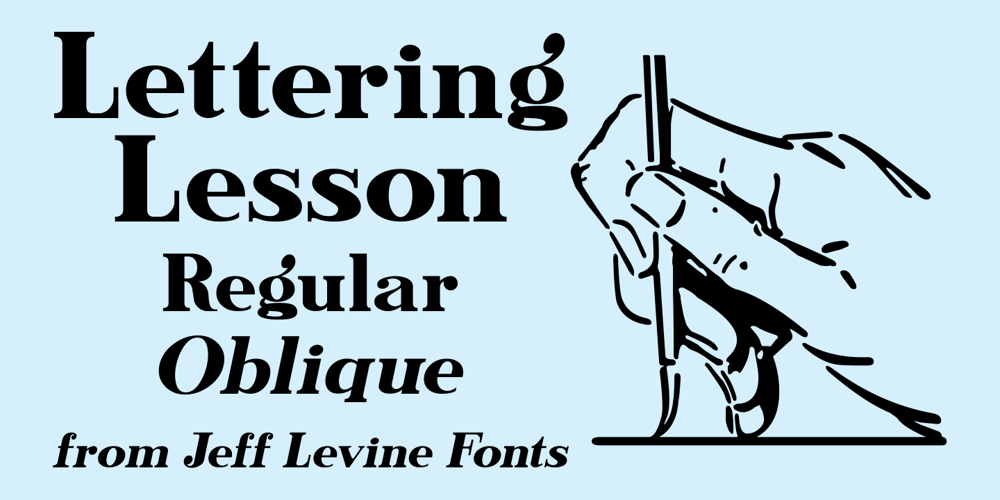
Lettering Lesson JNL Font Family was designed by Jeff Levine and published by Jeff Levine. Lettering Lesson JNL contains 2 styles and family package options. Lettering Lesson JNL is a bold serif alphabet found within the pages of the 1922 instructional booklet from the St. Louis Show Card School, and is available in both regular and oblique versions.